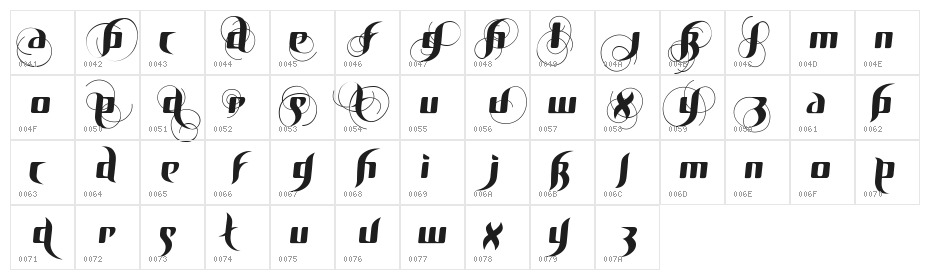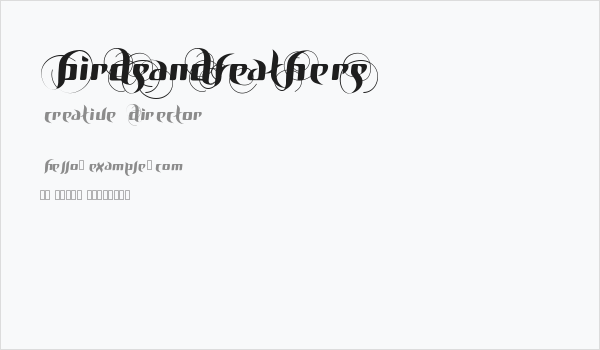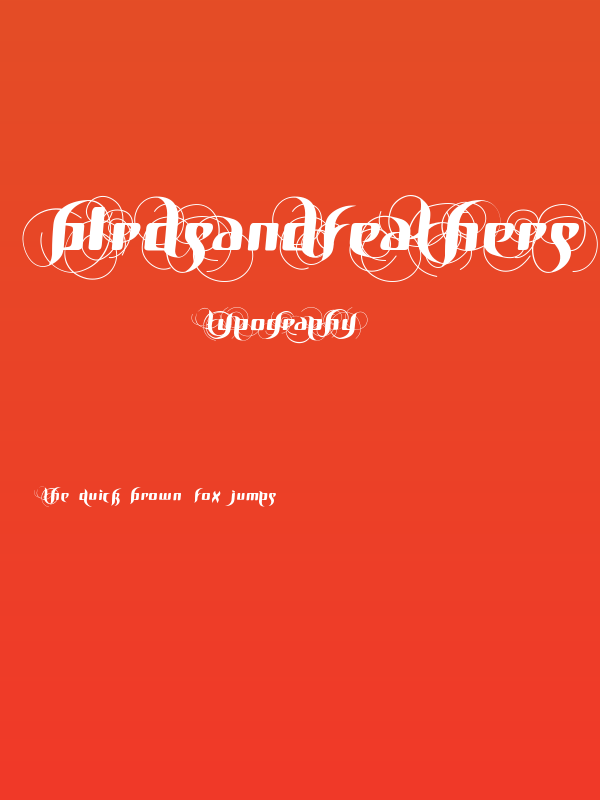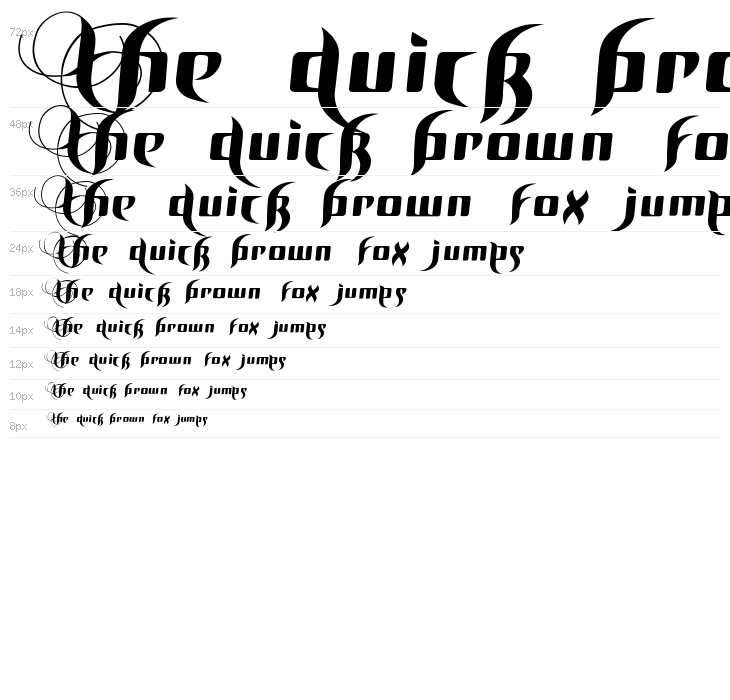
BirDSAnDFEatHerS Font
BirDSAnDFEatHerS Description
This font is a striking blend of calligraphic elegance and modern design. The uppercase letters are adorned with intricate swirls and flourishes, giving them a decorative and artistic flair. The lowercase letters maintain a more streamlined appearance, yet still carry a sense of sophistication. The overall style is reminiscent of traditional blackletter fonts, but with a contemporary twist that makes it suitable for modern applications. The bold strokes and high contrast between thick and thin lines add to its dramatic presence. This font is perfect for projects that require a touch of elegance and creativity, such as invitations, branding, and artistic posters.
| Use Case | Headlines, Logos, Artistic projects |
| Proposed Projects | Ideal for wedding invitations, luxury branding, artistic posters, and decorative headlines. |